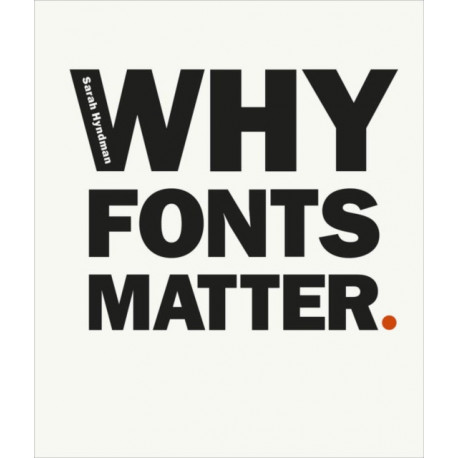
Fonts have different personalities that can create trust, mistrust, give you confidence, make things seem easier to do or make a product taste better. This book explains why certain fonts or styles evoke particular experiences and associations. It explores how you respond to fonts emotionally and can make fonts work for your message.